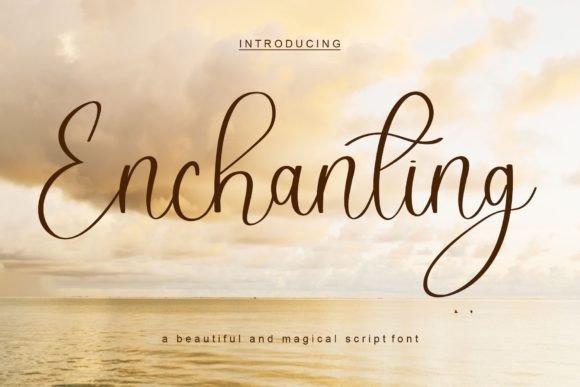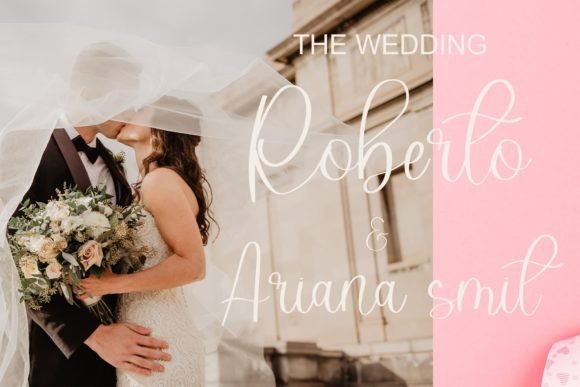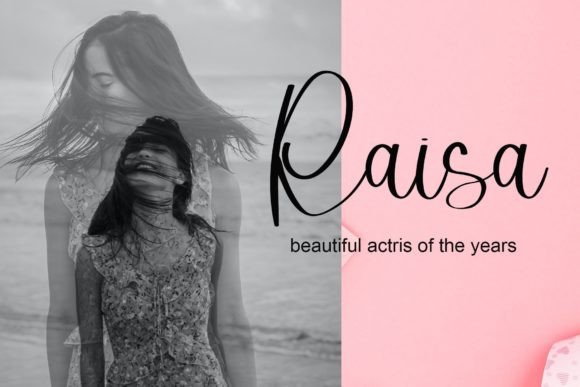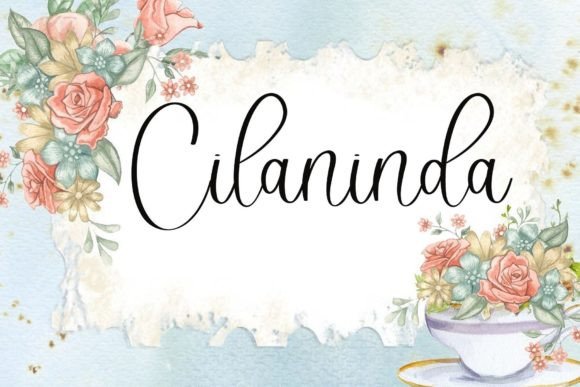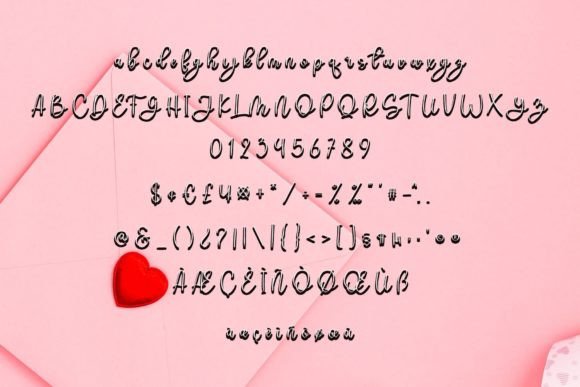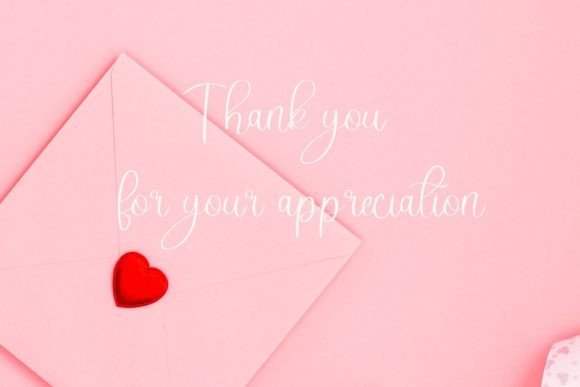
Enchanting Font
About Enchanting Font
“Enchanting” is more than just a font; it’s a sweet and beautiful handwritten script that adds a touch of luxury to your designs. With characters that dance along the baseline, this font brings a dynamic and enchanting quality, making it perfect for a variety of design projects.
The sweet and beautiful characteristics of “Enchanting” make it a versatile choice for a range of design applications. Whether you’re working on invitations, branding, social media graphics, or any creative project, this font adds a sense of elegance and charm to your typography.
The characters dancing along the baseline contribute to the overall enchanting quality of the font. This playful and dynamic visual element creates a sense of movement, adding a unique flair to your typographic compositions.
Whether you’re a professional designer or someone with a passion for creative expression, “Enchanting” is designed to elevate your projects. Its luxurious spark makes it suitable for creating designs that stand out and capture attention effectively.
In summary, “Enchanting” is a font that goes beyond traditional scripts; it’s a creative tool that adds a touch of luxury and enchantment to your designs. Let it be the font that brings a spark of elegance and charm to your projects, making them truly enchanting.